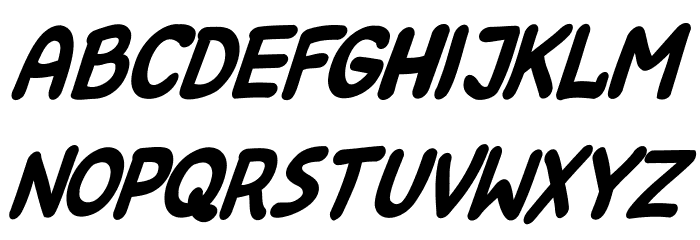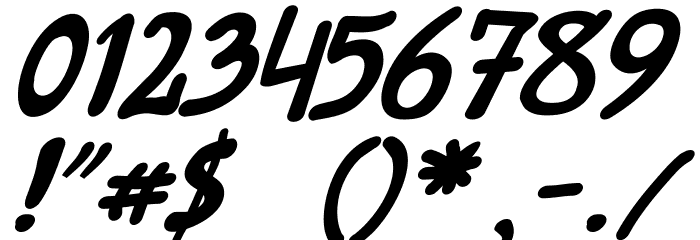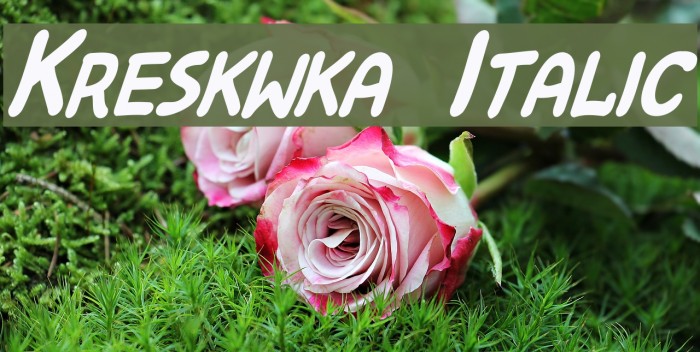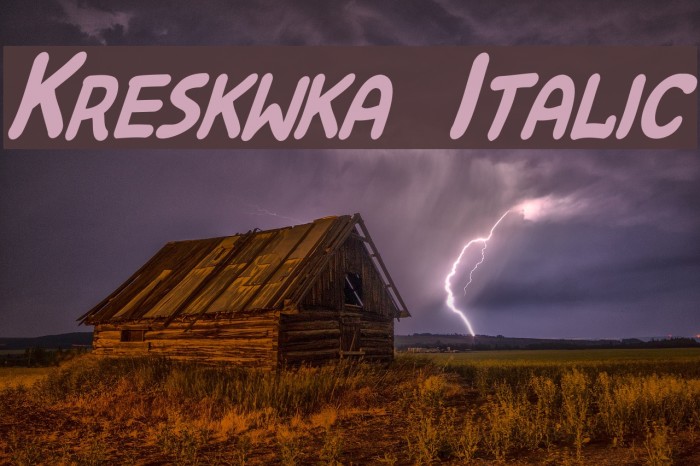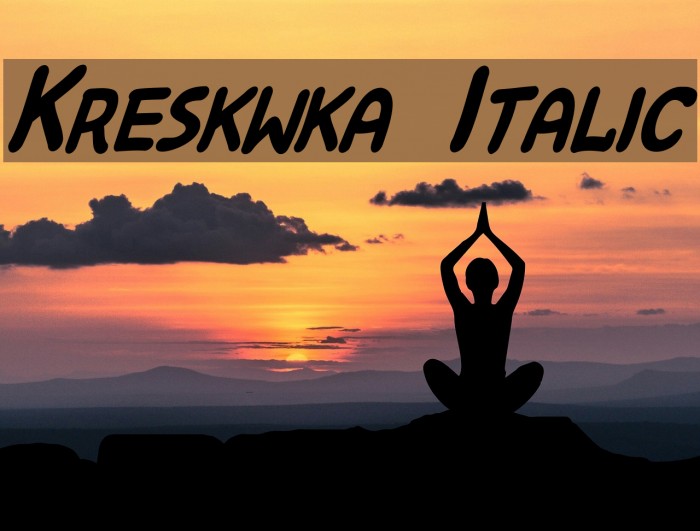
Kreskwka Italic Font
This font features a bold, dynamic script style with a strong italic slant, giving it a sense of motion and fluidity. The characters are rounded and smooth, with a consistent stroke width that maintains readability while adding a playful, informal touch. The uppercase and lowercase letters are well-balanced, and the numerals are clear and distinct. Special characters are integrated seamlessly, enhancing the font's versatility. Its energetic and friendly appearance makes it suitable for a variety of creative applications.
A bold, dynamic script font with a strong italic slant and smooth, rounded characters.
- Proposed Projects: Ideal for branding, advertising, posters, and any project requiring a lively, informal touch.
- Use Case: Logos, Headlines, Posters